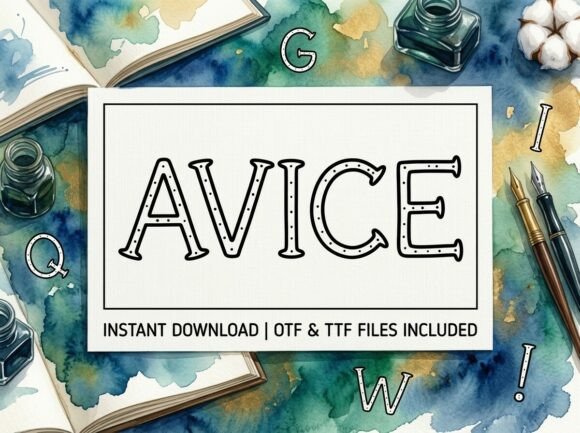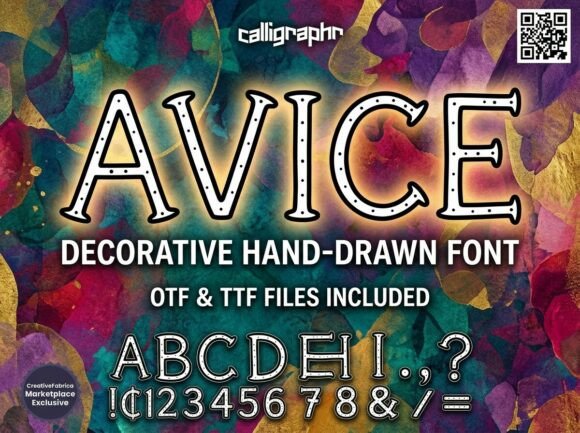
Sparkle with Vintage Charm: Introducing Avice Font
Are you looking for a typeface that exudes vintage charm and sophistication? Look no further than Avice, a celebratory display font that captures the essence of a bygone era. With its bold, hollow letterforms and rhythmic, hand-drawn stipple pattern, Avice is the perfect choice for designers and crafters seeking to add a touch of nostalgia and glamour to their projects.
The Inspiration Behind Avice
Avice is a typeface that embodies the spirit of classic marquee lights and dazzling theater signage. Its unique design is inspired by the ornate and decorative styles of the past, with a modern twist that makes it perfect for contemporary design applications. The font’s creator aimed to capture the “retro-and-radiant” soul of vintage typography, and the result is a truly show-stopping typeface that is sure to turn heads.
Key Features of Avice Font
So, what sets Avice apart from other display typefaces? Here are some of its key features:
- Bold, hollow letterforms: Avice’s letterforms are bold and eye-catching, with a hollow interior that gives them a sense of depth and dimensionality.
- Rhythmic, hand-drawn stipple pattern: The interior of each character features a unique, hand-drawn stipple pattern that adds texture and visual interest.
- Heavy structural weight: Avice has a sturdy, substantial feel that makes it perfect for headlines and titles.
- Prestigious personality: Avice exudes sophistication and elegance, making it ideal for high-end designs and luxury brands.
Use Cases for Avice Font
Avice is a versatile typeface that can be used in a variety of design applications. Here are some ideas to get you started:
- Independent event branding: Use Avice to create eye-catching posters, flyers, and social media graphics for concerts, festivals, and other events.
- Artisanal circus posters: Avice’s vintage charm and whimsical feel make it perfect for creating posters and advertisements for circuses and other performance arts.
- High-end invitations: Add a touch of luxury and sophistication to your invitations and wedding stationery with Avice.
- High-impact social media headers: Use Avice to create bold, eye-catching headers for social media graphics and blog posts.
Tips for Using Avice Font
Here are some tips for getting the most out of Avice:
- Experiment with colors: Avice looks great in bold, bright colors, but it can also be used in more muted, pastel shades for a softer look.
- Play with textures: Avice’s stipple pattern adds texture to your designs, but you can also experiment with other textures and overlays to add depth and interest.
- Mix and match: Avice can be paired with a variety of other typefaces and design elements to create a unique and eye-catching look.
Avice is a truly unique and special typeface that is sure to add a touch of vintage charm and sophistication to your designs. With its bold, hollow letterforms and rhythmic, hand-drawn stipple pattern, Avice is the perfect choice for designers and crafters seeking to create eye-catching and memorable designs. Whether you’re working on a independent event branding, artisanal circus posters, high-end invitations, or high-impact social media headers, Avice is the premier choice for adding a touch of glamour and nostalgia to your projects.